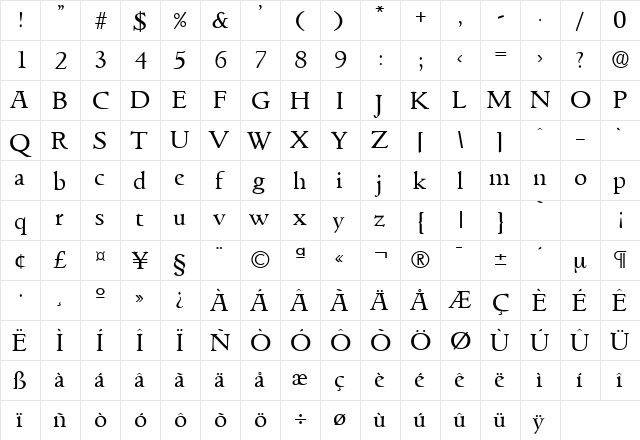
Goudita-Serial Regular
Design Context for Goudita-Serial Typeface
Goudita-Serial offers clean, dependable letterforms without strong stylistic allegiance, making it a practical choice for designers who need flexibility.